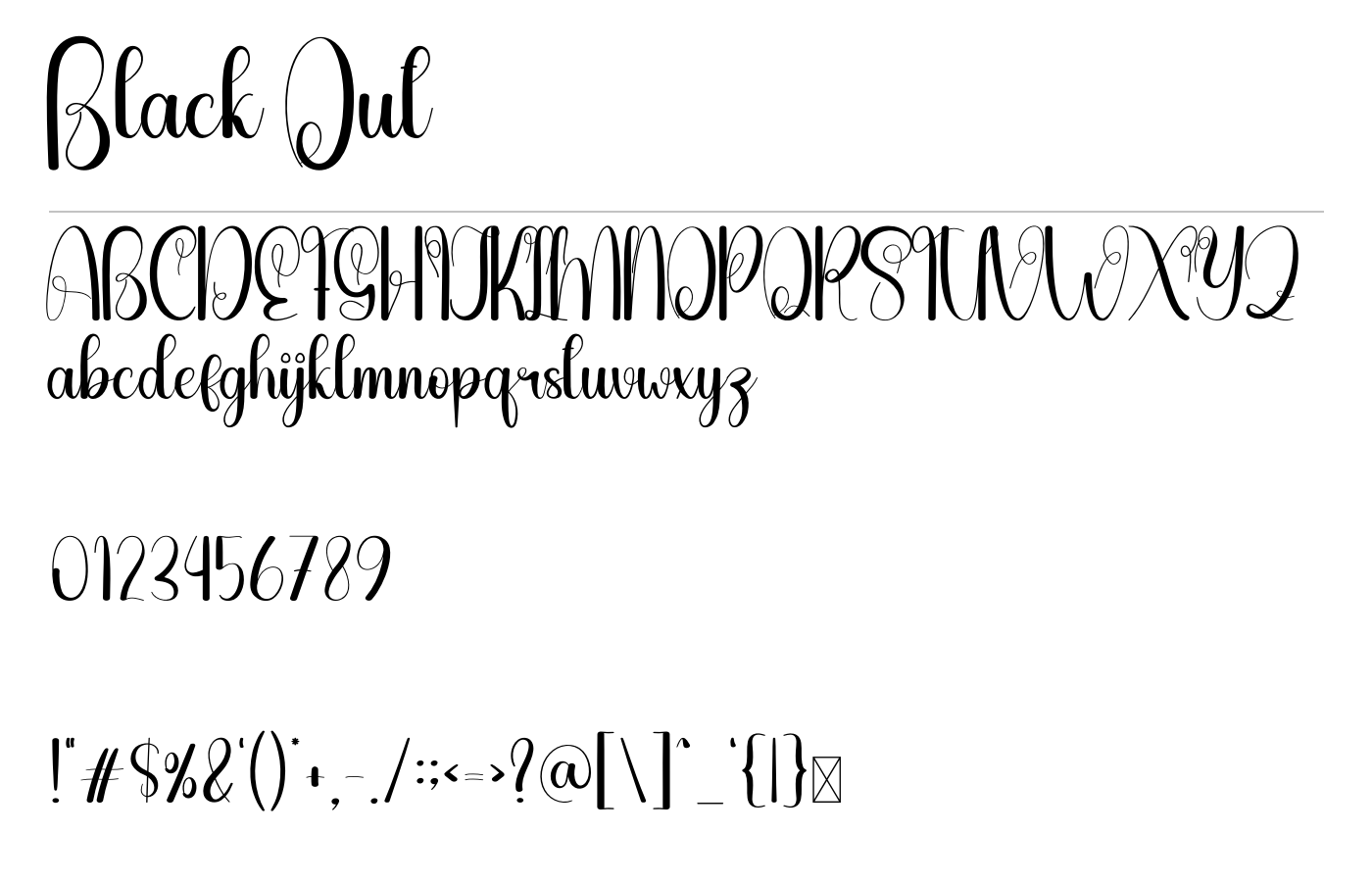
Black Out is a distinctive script font characterized by its tall, slender letterforms and elegant flourishes, blending bold strokes with delicate, playful swirls. This font exudes a whimsical yet sophisticated charm, making it ideal for creative branding, invitations, and eye-catching headlines that seek a touch of personality and flair. Its unique mix of thick and thin strokes adds visual interest while maintaining readability, perfect for projects that want to stand out with a graceful, artistic style.
Black Out Font